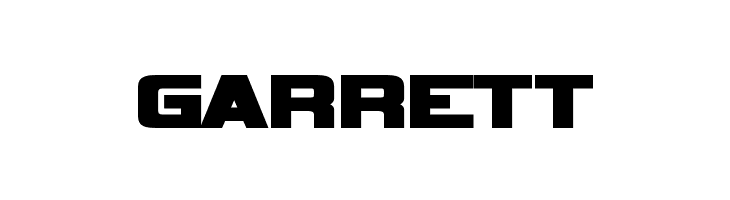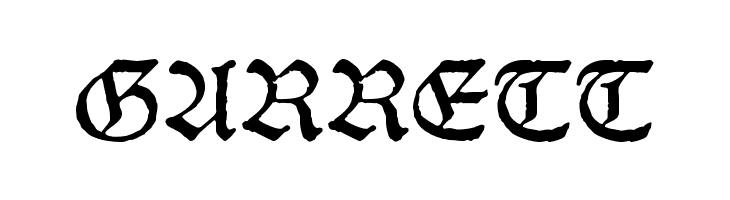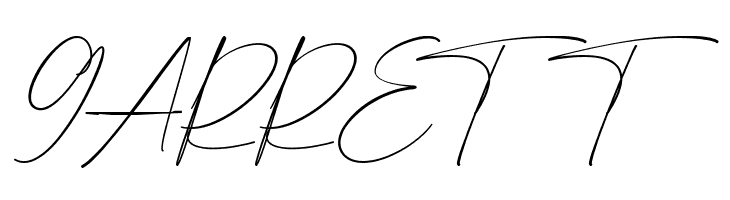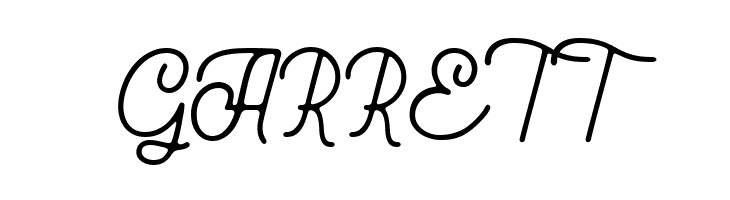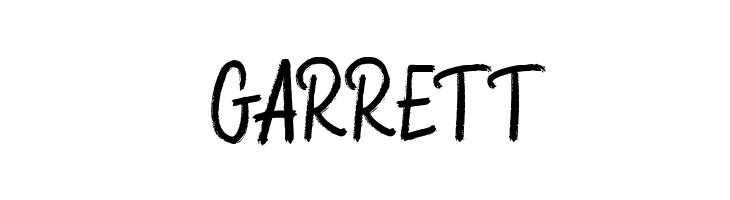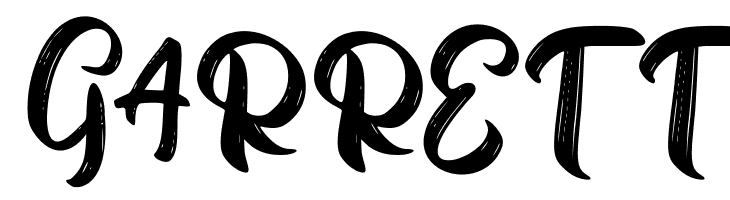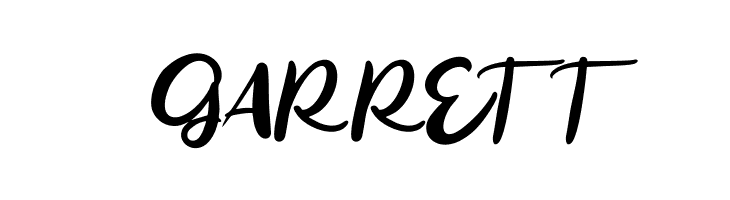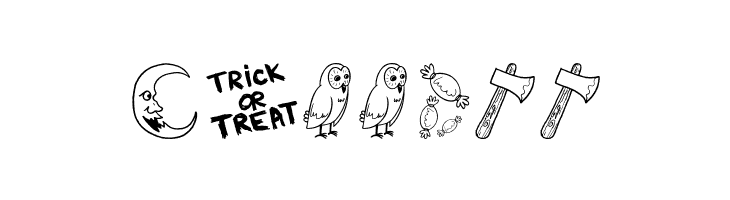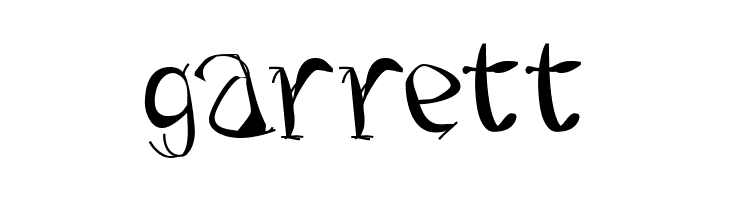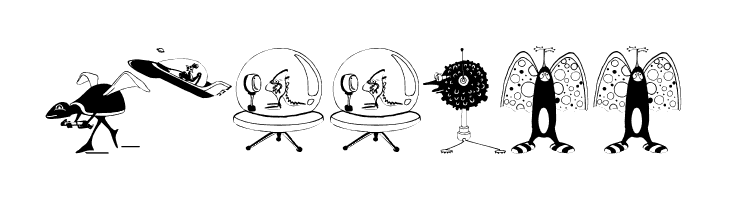
Playful dingbat font with hand-drawn angel illustrations.
A whimsical collection of cartoon-like illustrations with angelic themes.
Bold, brush-style script with a modern, handwritten look.
A whimsical, Halloween-themed font featuring playful hand-drawn illustrations.
A spooky, Halloween-themed font with spider web and spider accents.
A playful, spooky font with jagged, uneven strokes, perfect for Halloween themes.
A spooky, Halloween-themed font with dripping, cobwebbed characters.
A playful, illustrated display font with Halloween and UFO themes.
A bold, distressed font with a chaotic and energetic style.
A lively and elegant script font with smooth, interconnected curves.
A playful handwritten font with fluid, connected letterforms and a charming cursive flow.
A bold, handwritten font with a brush-like texture and dynamic style.
A bold, expressive script font with a hand-painted, artistic style.
A bold, slanted font with a dynamic and energetic style.
A bold, slanted font with a condensed width, perfect for dynamic headlines.
A Gothic-style font with ornate, angular characters and decorative flourishes.
A gothic, medieval-style font with ornate and sharp-edged characters.
A graceful and fluid script font with elegant, flowing lines.
A flowing, cursive font with elegant loops and swashes.
A bold, distressed font with a vintage, rustic appearance.
A decorative font made of expressive hand-drawn emoticon faces in circles.
A playful, handwritten font with tall, narrow letters and a casual style.
A playful, handwritten font with tall, narrow characters and uneven strokes.
A playful, handwritten font with a casual and informal style.
A playful handwritten font with uneven strokes and a casual style.
A bold, hand-painted style font with dynamic brush-like strokes.
A whimsical, hand-drawn font with playful and irregular strokes.
A flowing, cursive script font with elegant, interconnected characters.
A charming, handcrafted typewriter-style font with a vintage feel.
A diverse illustrated hand gesture font with cartoon and realistic styles.